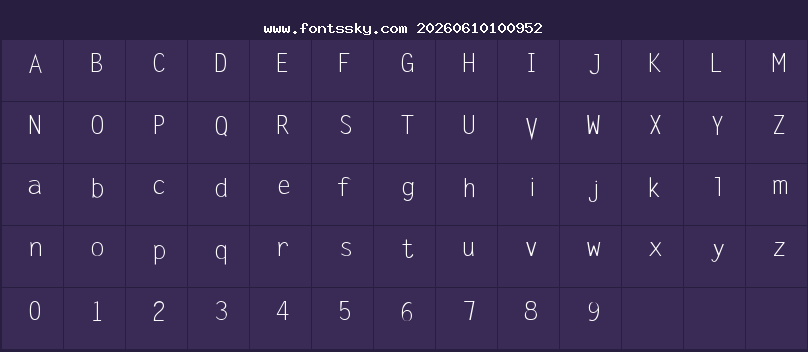
字体家AI造字艺空 Preview
• Font Name: 字体家AI造字艺空
• Full Font Name: 字体家AI造字艺空
• Description: 字体家AI造字艺空是由AI生成的字体,适合应用在运用在海报设计,影视动漫,插画,画册等文字排版
字体家AI造字艺空.ttf is a modern, elegant sans-serif font designed for ultimate readability and visual harmony. Perfect for branding, headlines, web design, and print materials.